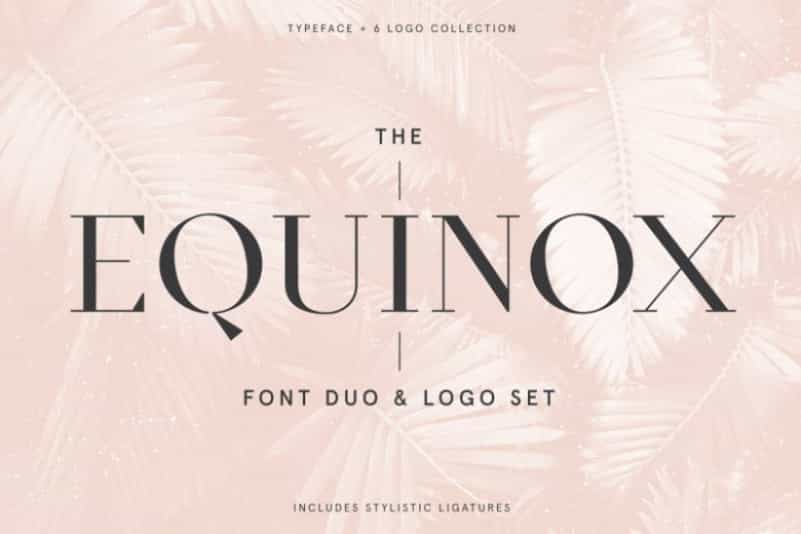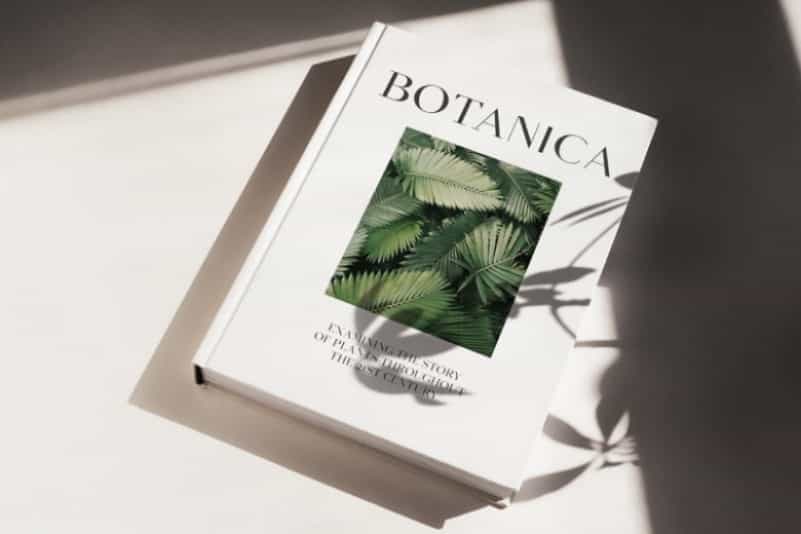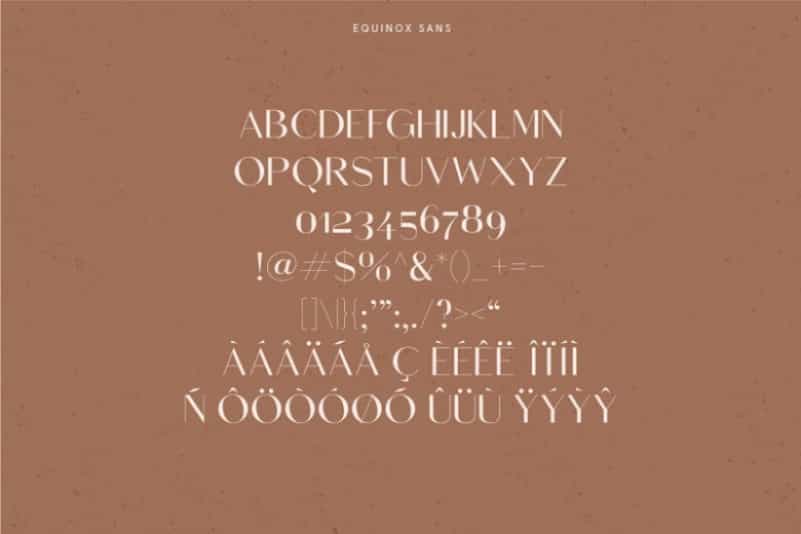
Discover Equinox Font Duo, part of the Serif collection—a versatile and unique font perfect for adding a personal touch to your projects. Download it for free and enjoy crafting designs with style, from invitations to social media posts. This font is available exclusively for personal use, giving you the freedom to create without limits. Unlock your creativity with Equinox Font Duo today!
Equinox Serif is a contemporary fashion magazine type font, is a pretty sleek classy serif font with a laid back elegance. The layout is created and posted from Studio Aurora. The Equinox is a new distinctive sans serif and serif typeface cut off into two styles: one actual and the other ghostly. Equinox is complemented perfectly with Equinox sans-serif for logos, magazine masthead, brands, and even typeface and body text.